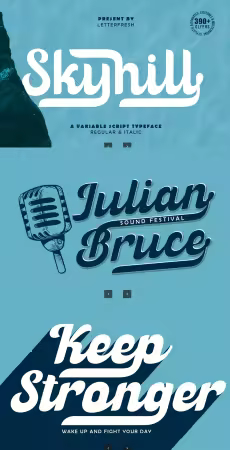
Introducing Skyhill Script Variable Pro, a new curve that carefully creates and balances script typography with personality. The flowing characters are ideal for creating compelling messages. Mix and match Skyhill Script Variable Pro with various weights to suit your project.